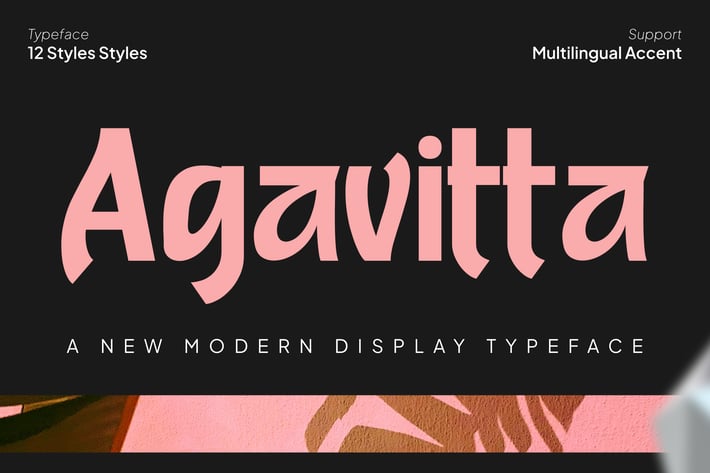
Agavitta Font
Meet Agavitta, a stunning and versatile typeface that will take your design projects to the next level. With its 12 font families, including:
Bold
Extra bold
Light
Extra light
Medium
Regular
Sebi bold
Thin
...and their corresponding italics, Agavitta offers a wealth of options to choose from.
This font is perfect for a range of applications, from logos and branding to editorial design and web typography. Its clear and legible design ensures that your message is delivered with maximum impact, while its bold and stylish look adds a touch of sophistication to any project.
One of the best things about Agavitta is its ability to combine letters to create unique and eye-catching results. Whether you're using it for headlines or body text, this font is sure to make a lasting impression.